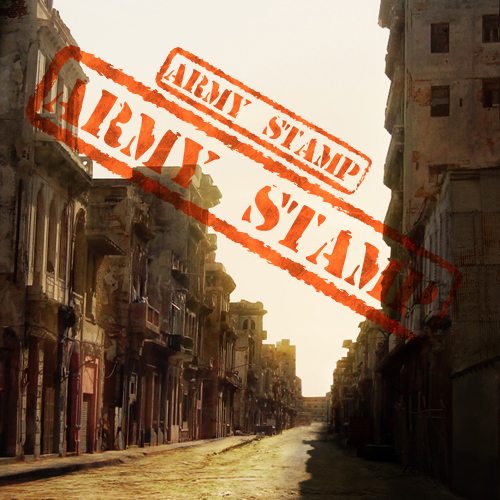
Army Stamp is a free eroded military stencil font with the blunt force of stamped supply markings. Tall, heavy letters have irregular cutouts, chipped edges, and narrow gaps that make the impression look battered and uneven.
Military and surplus themes make it a convincing fit for game title cards, action posters, and rugged merchandise. Its distressed stencil forms can also become the identifying mark on workwear packaging or an outdoor brand built around field gear and hard use.